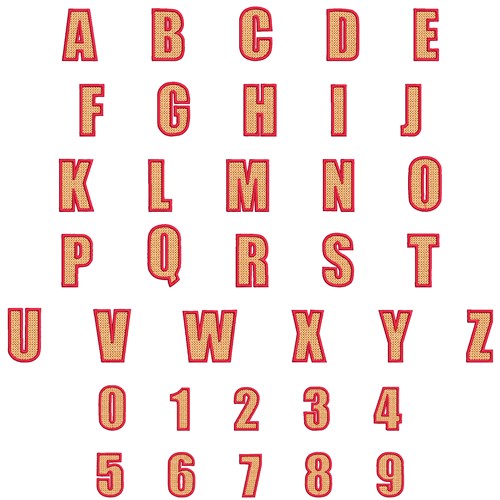
Campus Cross Embroidery Font - Bold Block Outline Letters - 10 Sizes: 2.5" TO 7" - Home Format by Satin Stripes and other embroidery fonts available at EmbroideryDesigns.com.
Bold outline block letters in vibrant red are ideal for crafting names and numbers on backpacks and other fabric items. This machine embroidery font is available in PES, DST and 7 additional formats for versatile use.